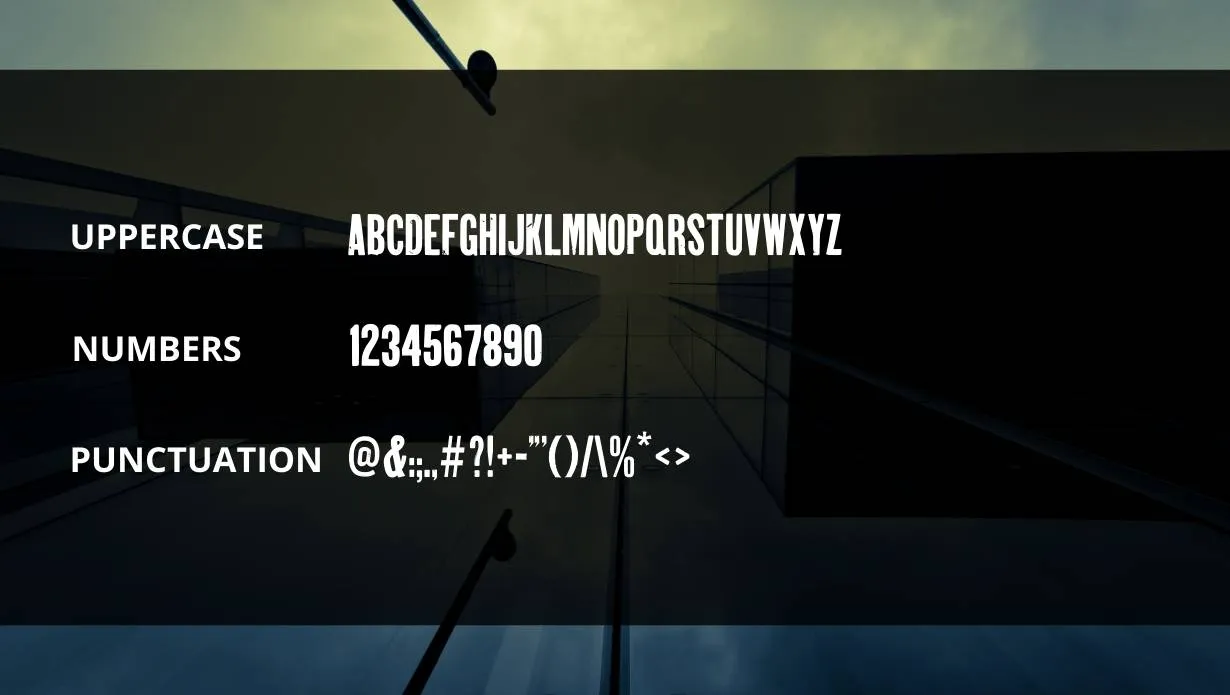
The Joker is a DC Comics intensive suspense thriller. The movie’s director is Todd Phillips, co-founder of the project, and Scott Silver. Joker Font is a well-known font since being recently used in the famous movie “Joker.” This Typeface used in the film’s poster is known to be called the Gothic Joker..
View of Joker FontĀ
Joker Font Info
| Name | Joker Font |
| Designer | Michael Hoyle |
| Style | Display |